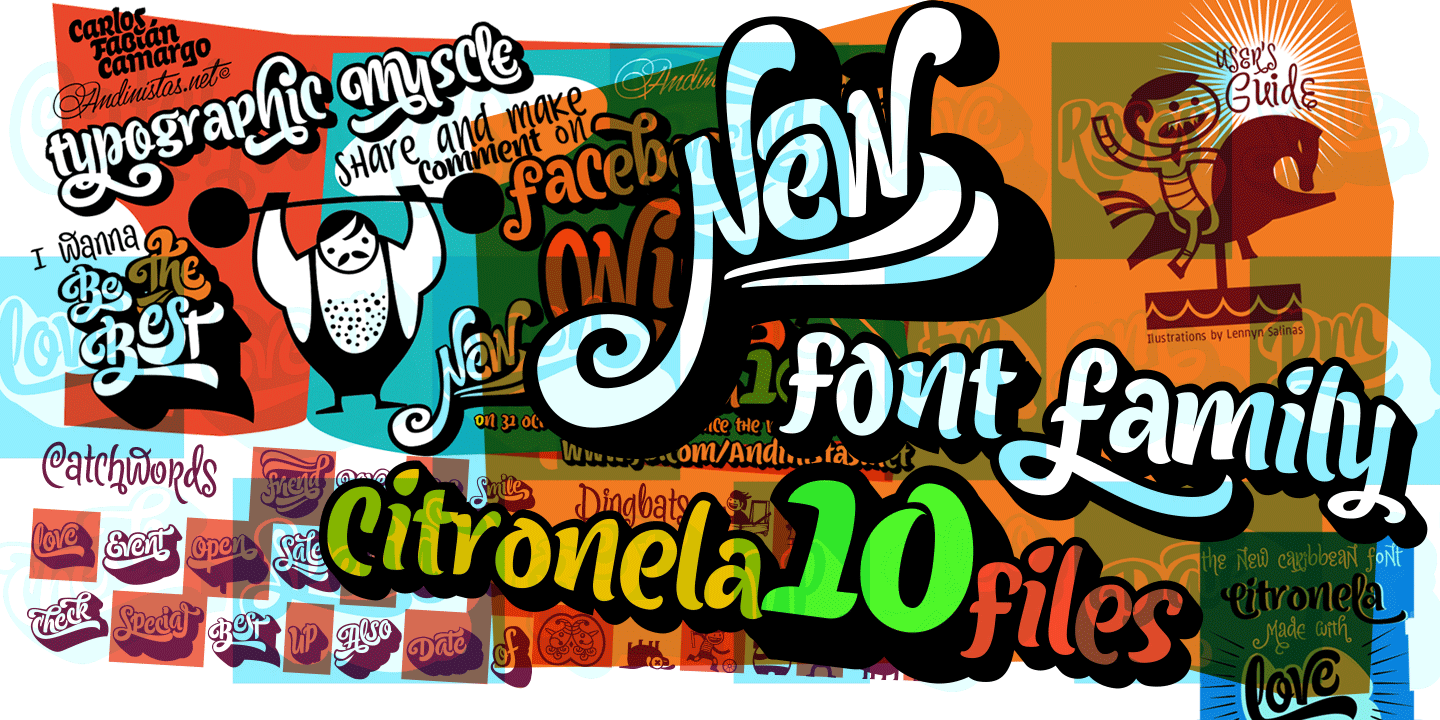
Brighten Your Designs with Citronela Font Free Download
Citronela Font is a refreshingly vibrant typeface, perfectly suited for designs that evoke a sense of warmth, friendliness, and natural charm. Imagine it gracing the packaging of organic products, adding a cheerful touch to a healthy lifestyle blog, or bringing a clean, approachable feel to café menus. Its soft curves and inviting aesthetic also make it ideal for children's book illustrations, sustainable brand identities, summer event promotions, and any project that calls for an optimistic and inviting atmosphere. Whether you’re crafting something light and airy or aiming for a cozy, authentic appeal, Citronela Font will infuse your work with a delightful personality and an undeniable sense of freshness.
What makes Citronela Font so exciting? It’s far more than just letters; it’s an instant ray of sunshine for your designs. Its clean lines and gentle, often rounded, forms create an immediate visual narrative that evokes comfort, sincerity, and a modern yet approachable sensibility. Designers frequently praise its ability to convey both a contemporary style and a genuine warmth, making it an excellent choice for projects that need to feel both professional and personable. This font doesn't just display text; it radiates positivity, making your audience feel welcome and engaged. It's the perfect choice for anyone looking to add a touch of charming simplicity or a fresh, organic feel to their creative endeavors, ensuring your message is not only seen but deeply appreciated for its understated beauty and clear readability.
The Citronela Font family, while celebrated for its signature fresh and friendly style, often offers variations to provide versatile application for your design needs. You’ll typically find Citronela Regular as the foundational weight, embodying its characteristic charm. For added emphasis or stylistic nuances, some families might include Citronela Light for a delicate touch, or Citronela Bold for more prominent headlines without losing the font's inherent approachability. Occasionally, Citronela Italic might be available, offering a graceful slant perfect for quotes or emphasizing specific text. These subtle differences allow for nuanced application within your designs, enabling you to build cohesive and captivating typography that feels both modern and genuinely inviting. Explore the full, refreshing potential of this remarkable typeface and discover how it can bring a vibrant simplicity to your creative projects. After experiencing the delightful charm of your initial Citronela Font Free Download, remember to secure the necessary license for all commercial and professional applications.